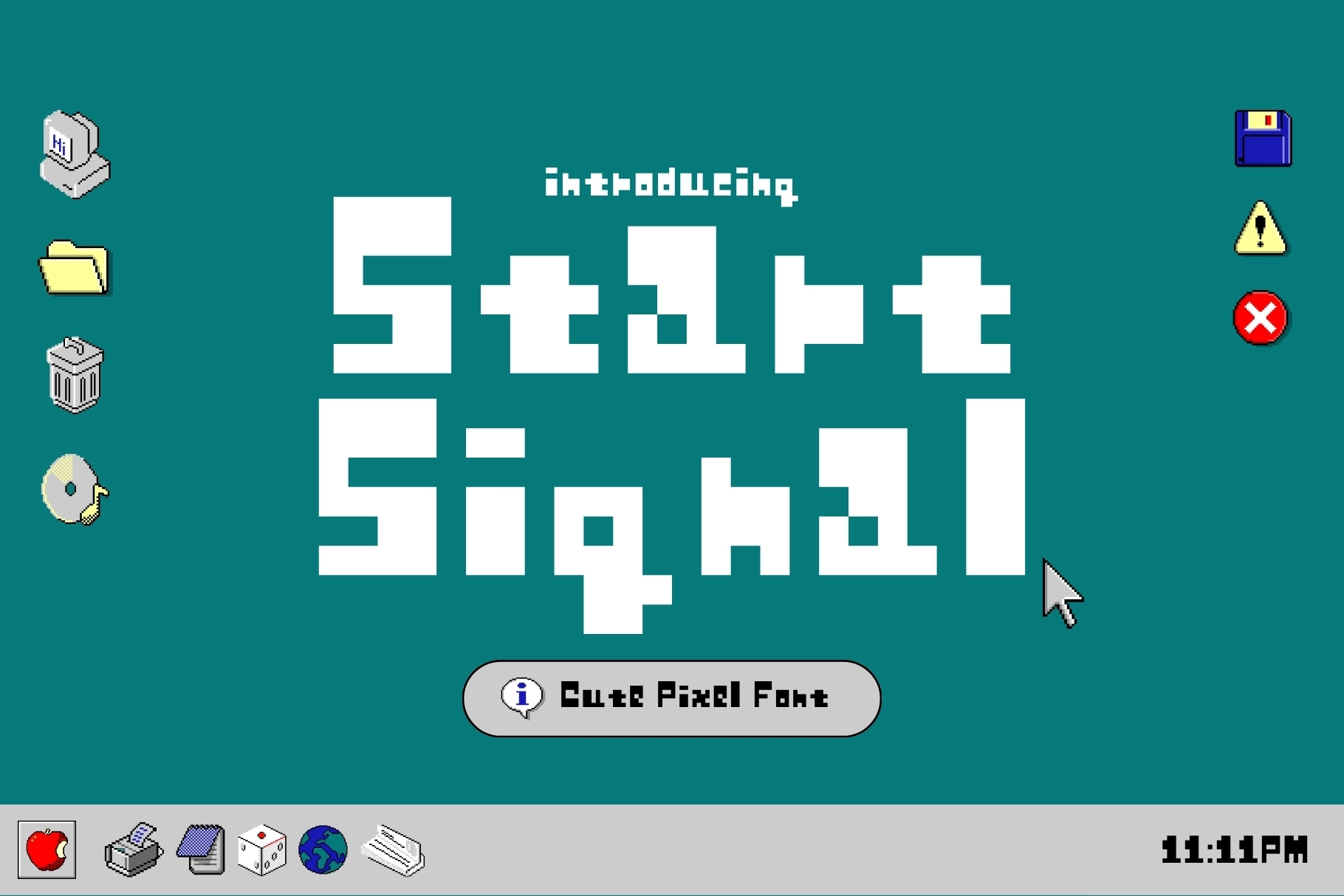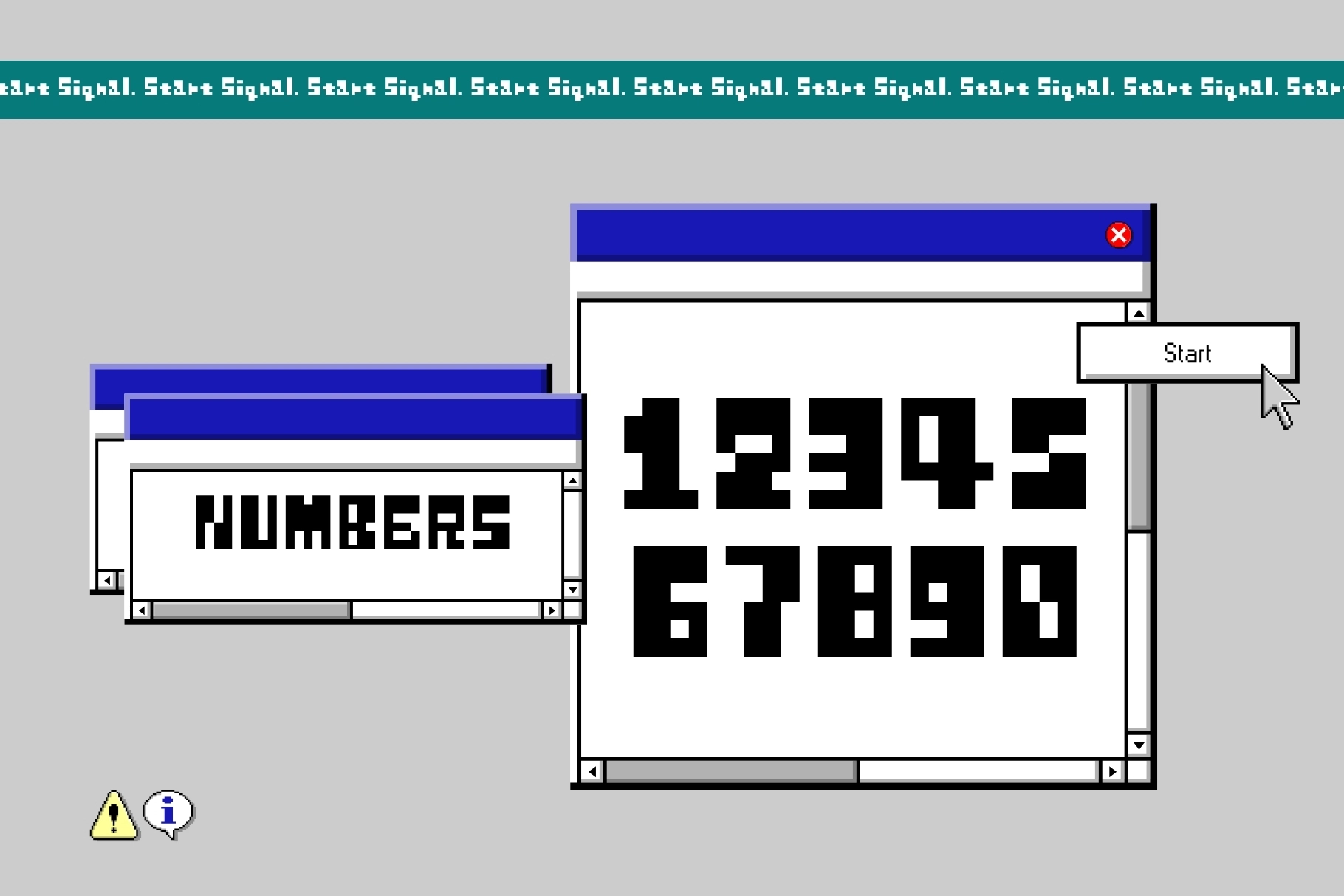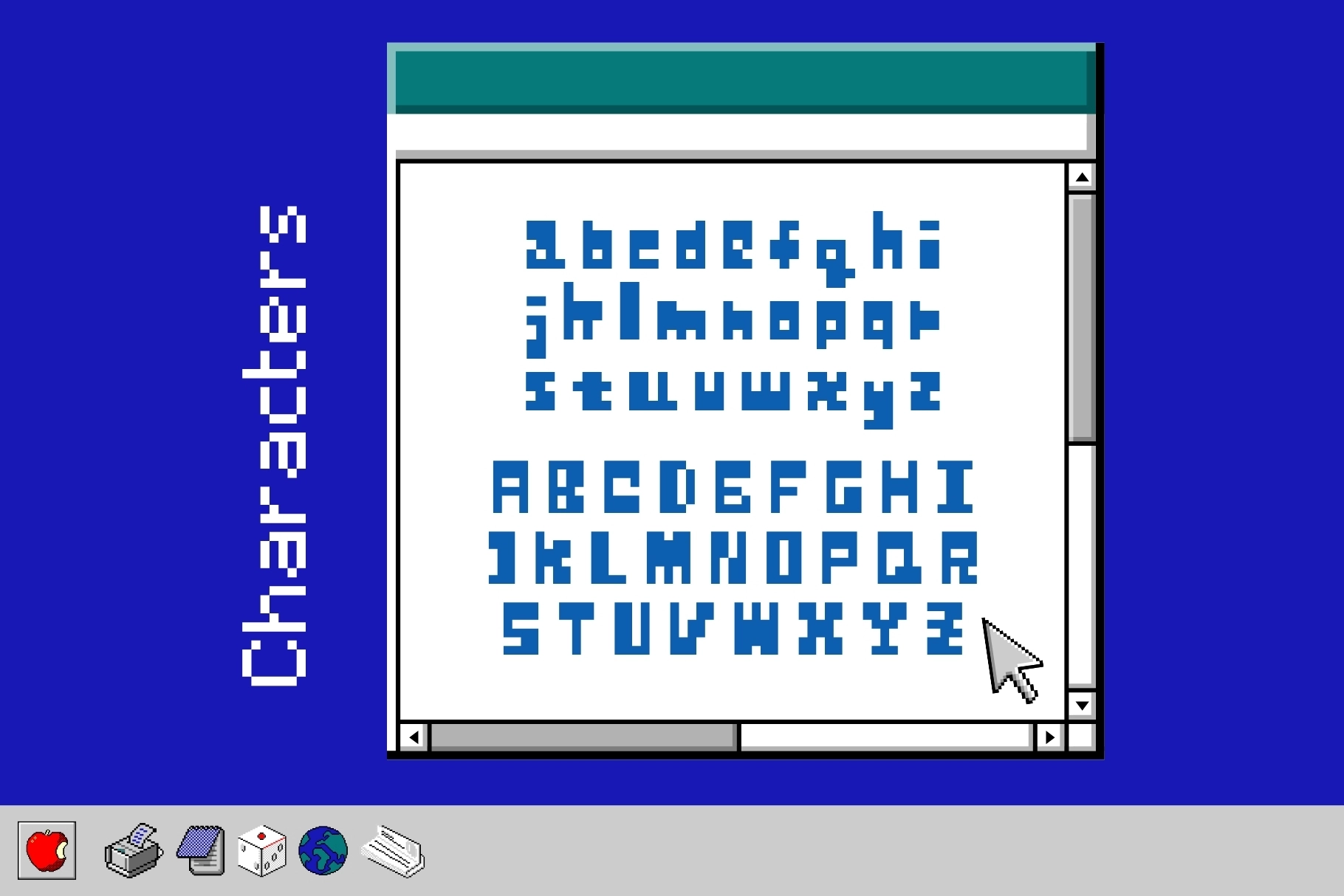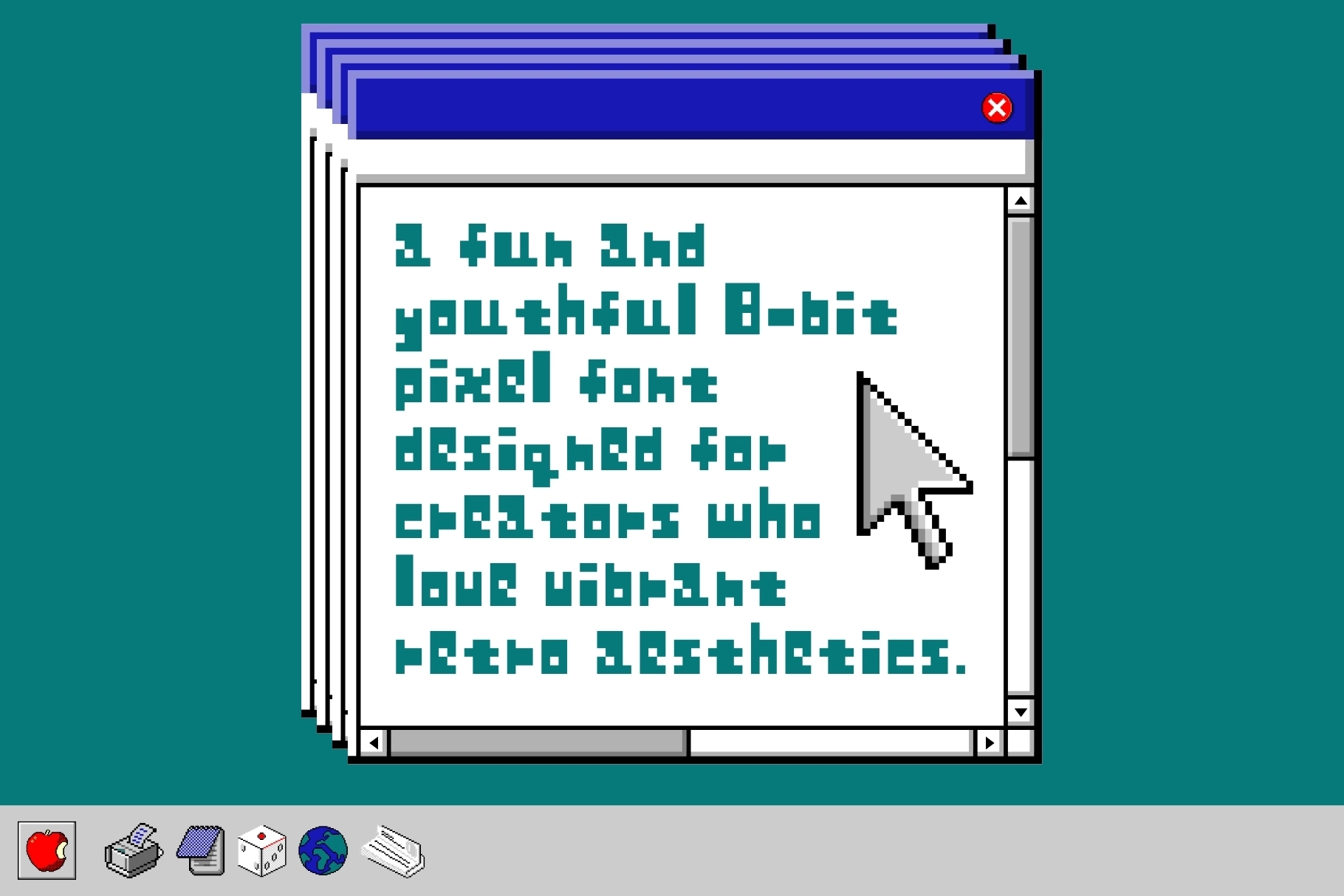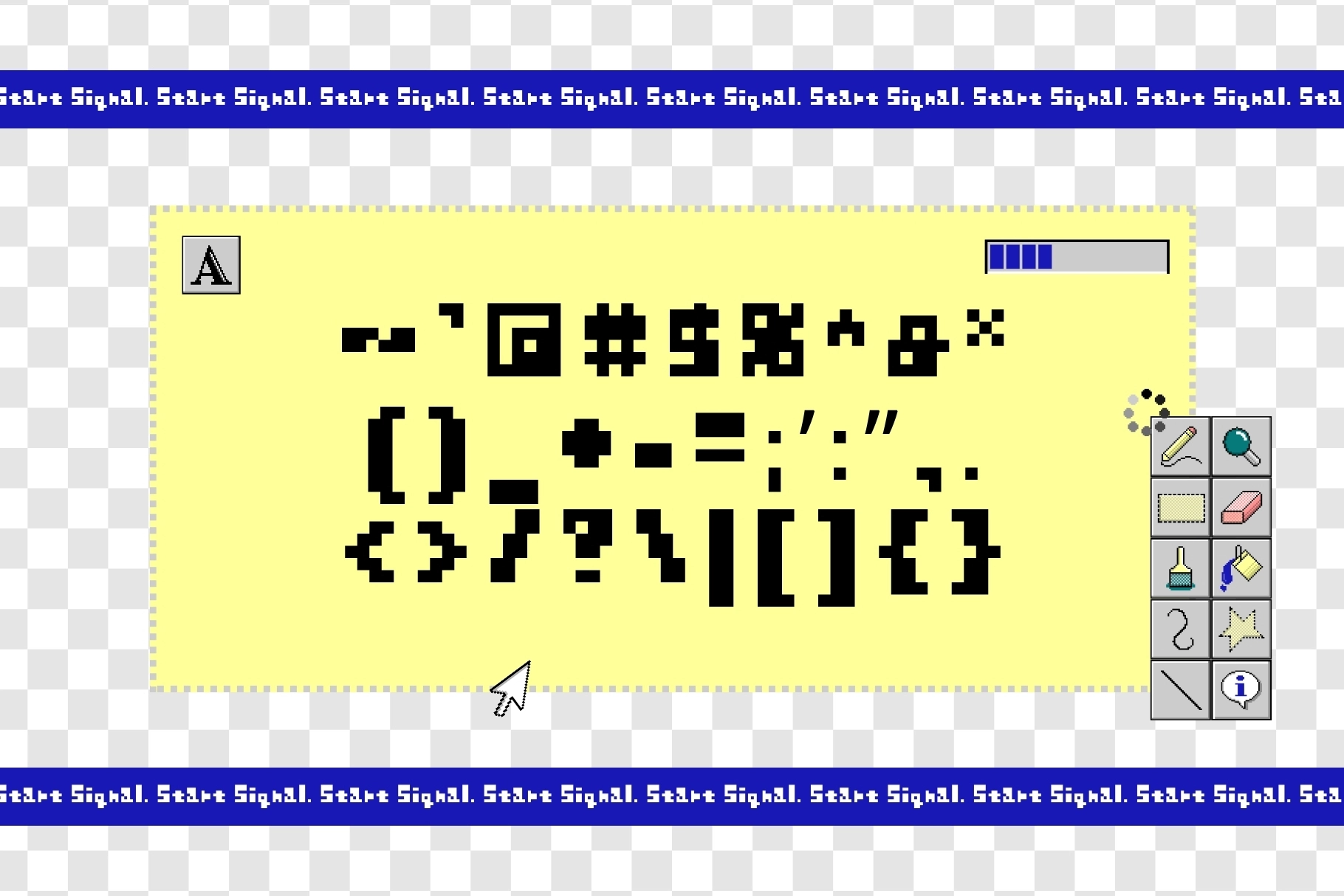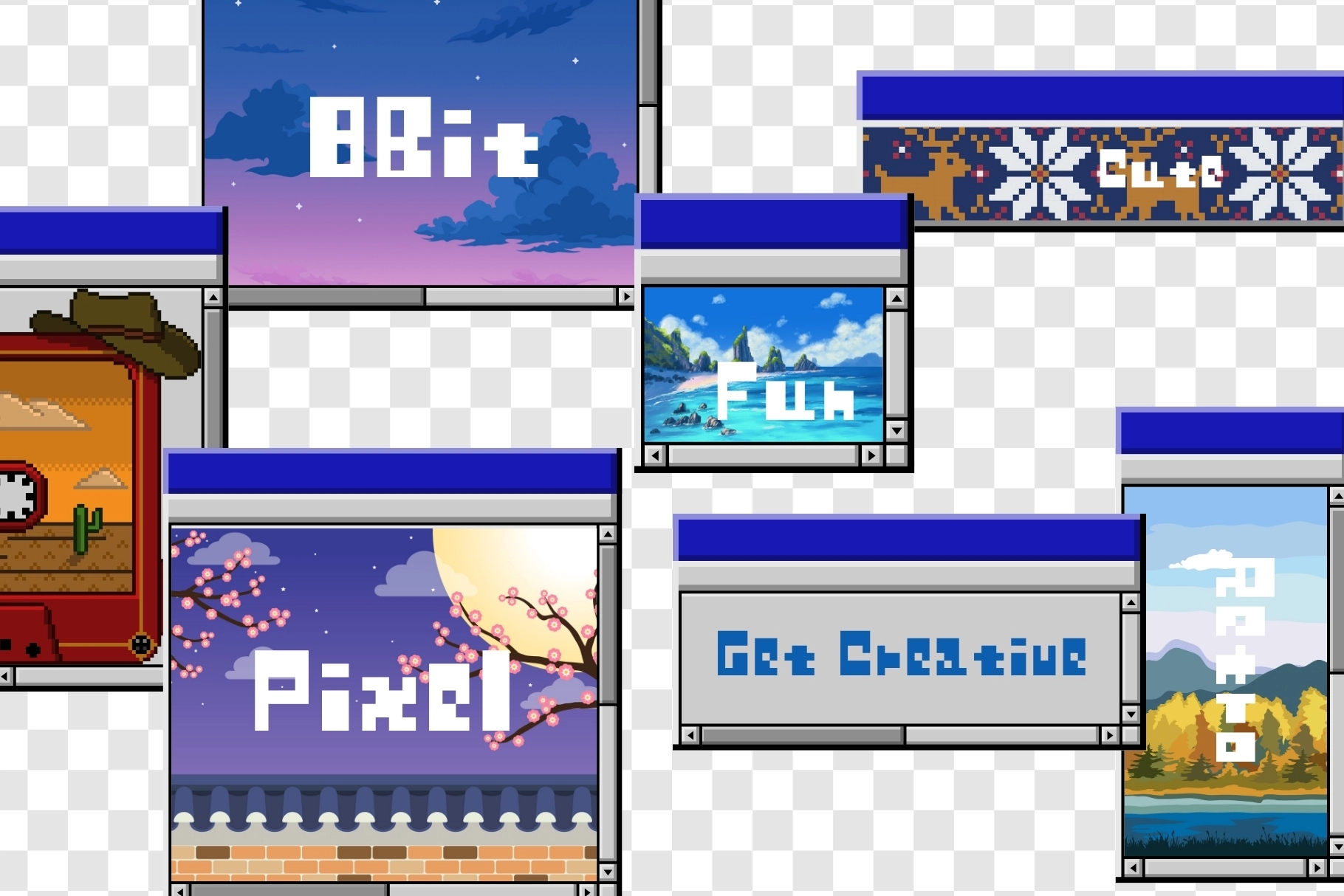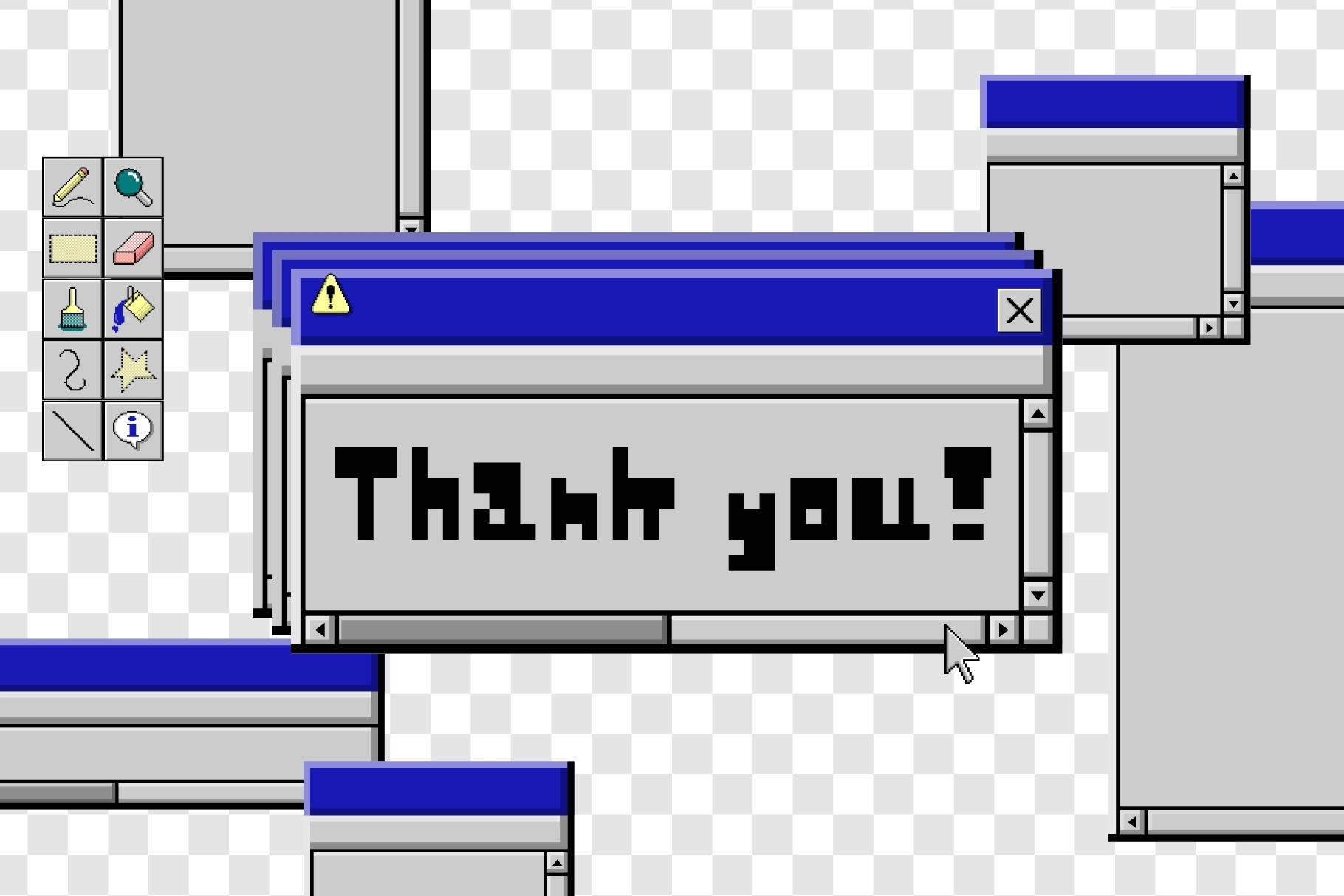
Start Signal - Cute Pixel Font
StartSignal
Start Signal, Cute Pixel Font has the chunky cadence of early arcade screens and Windows 95 game menus, with blocky letterforms that echo 8-bit consoles, shareware graphics, and late-1990s desktop culture. It suits game titles, pixel art captions, UI mockups, posters, stickers, YouTube thumbnails, and merch where a bright retro voice and crisp presence feel right at home.
- Classic 8-bit pixel style